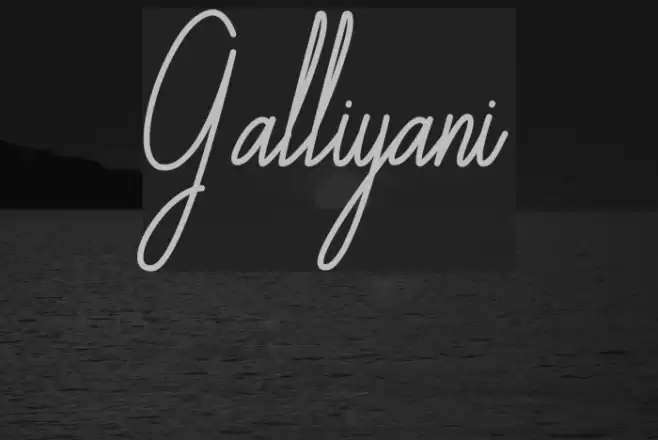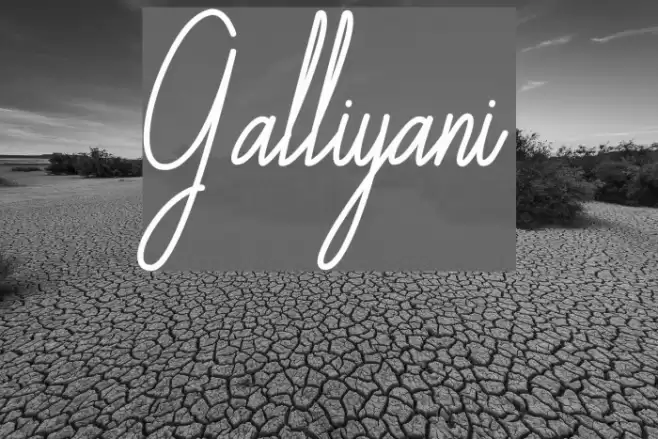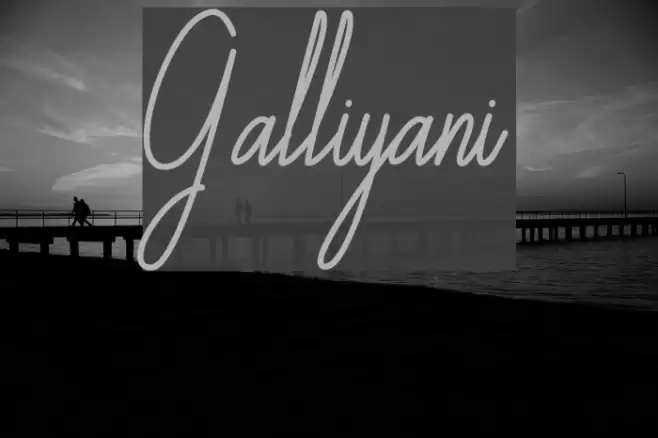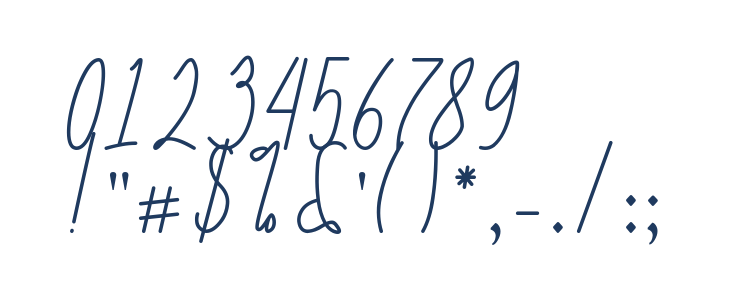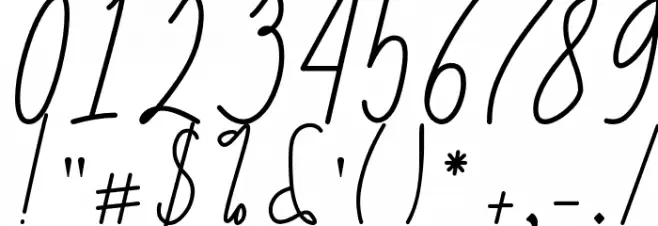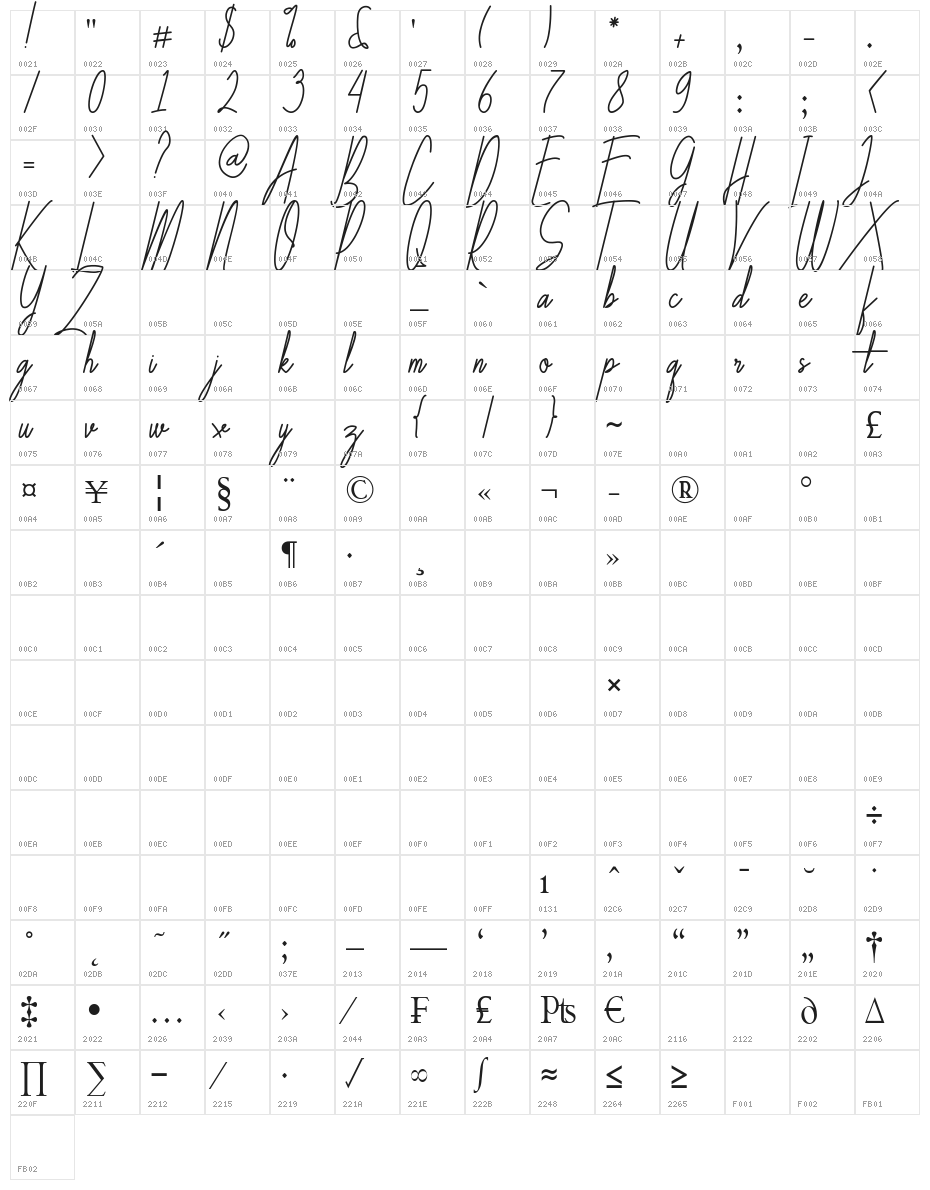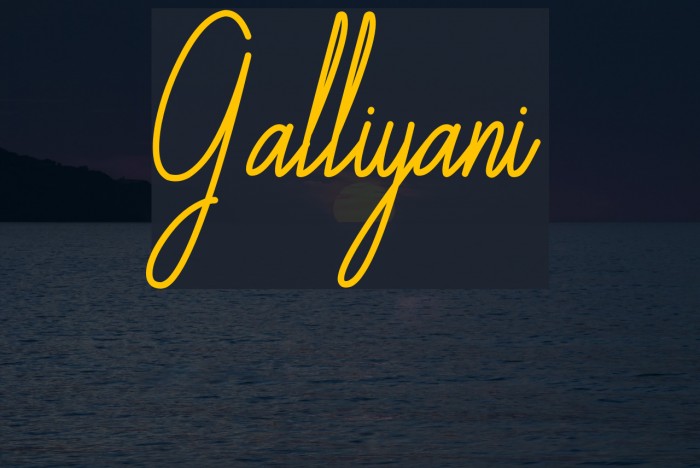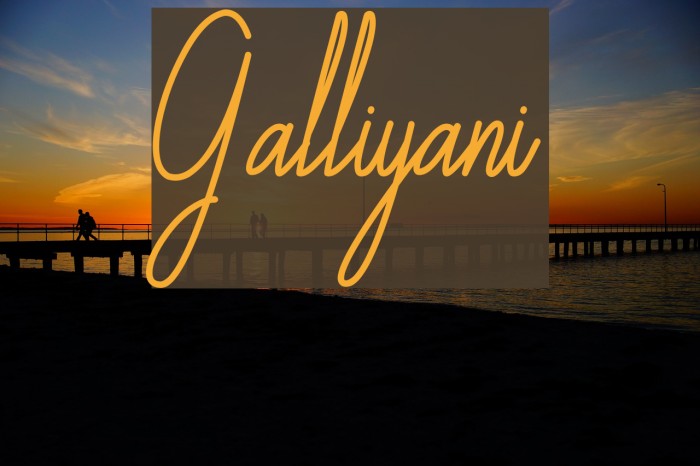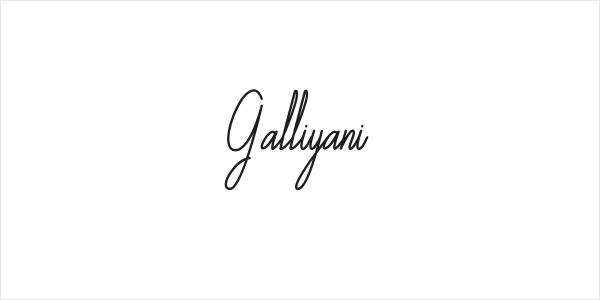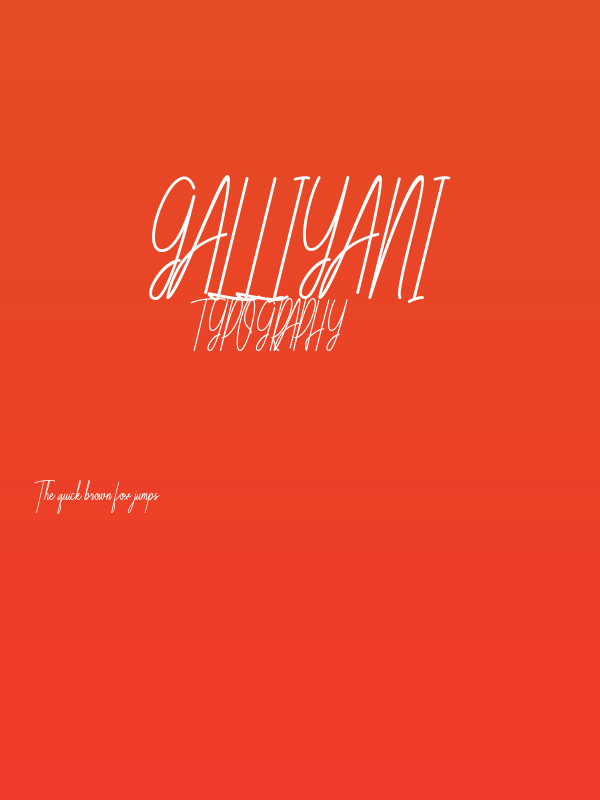
Galliyani Font
Galliyani Description
This font features a dynamic and expressive handwritten style, characterized by its tall, narrow letterforms and fluid strokes. The uppercase letters are particularly elongated, giving a sense of elegance and movement. The lowercase letters maintain a consistent flow, enhancing readability while retaining a personal touch. The numerals and special characters follow the same stylistic cues, ensuring a cohesive appearance across all text. This font's unique style is well-suited for projects that require a touch of sophistication and individuality.
A dynamic handwritten font with tall, narrow letterforms and fluid strokes from Uncategorized fonts.
- Proposed Projects: Ideal for wedding invitations, personal branding, artistic posters, and creative logos.
- Use Case: Logos, Invitations, Artistic Projects